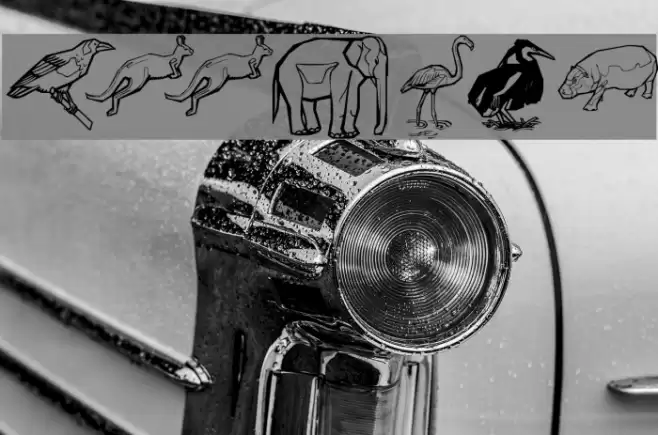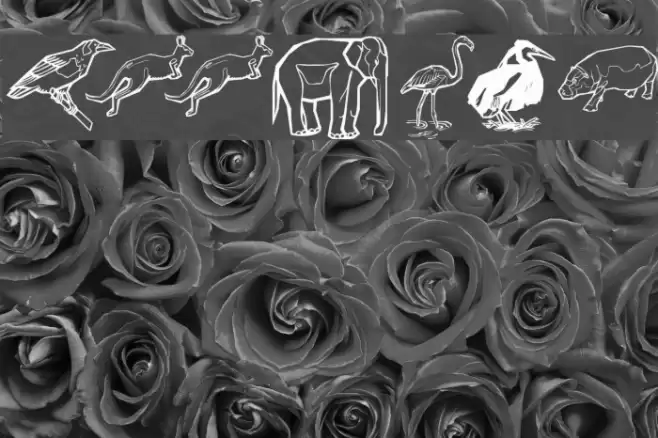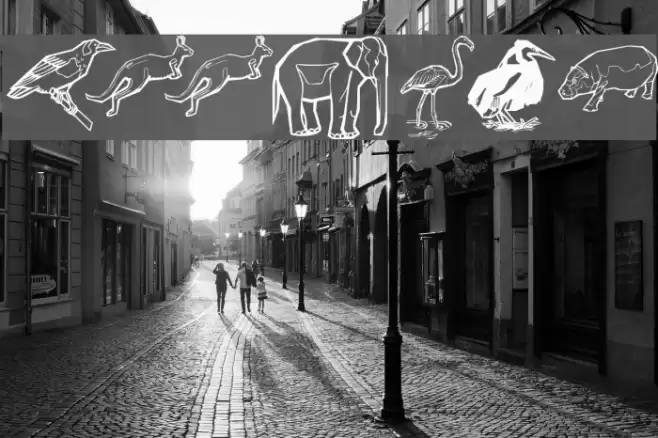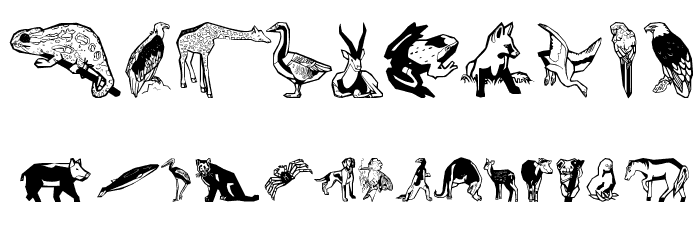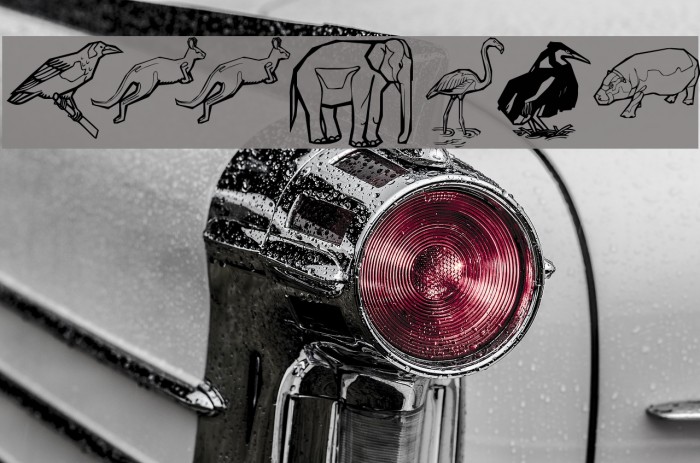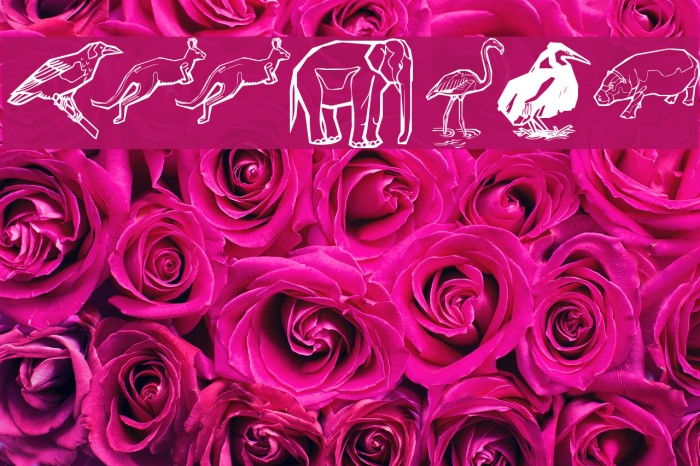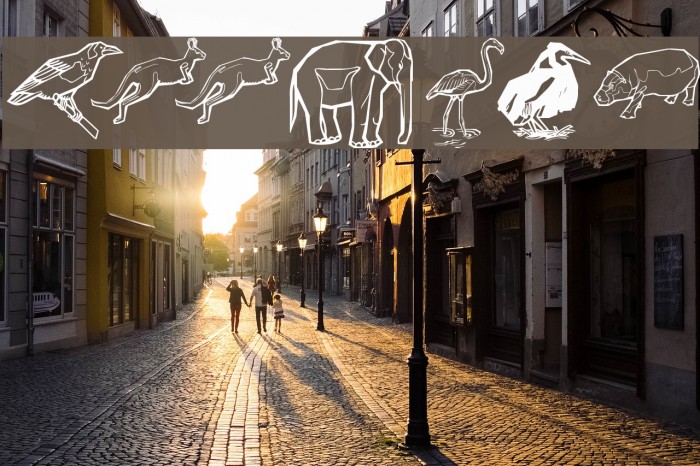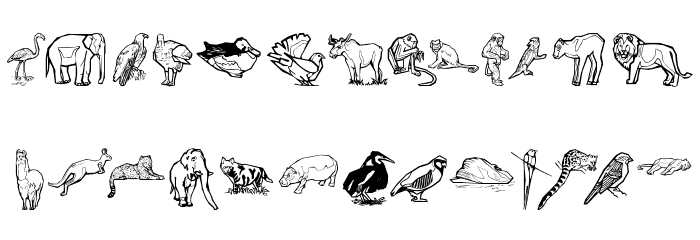
Zoobats Font
Zoobats Description
A decorative display font composed of detailed black-and-white animal illustrations forming each character, with each letter or symbol represented by a unique animal or bird in a hand-drawn style. The outlines are bold and the forms are highly illustrative, making each character distinct and visually engaging.
- Proposed Projects: Children's books, educational posters, zoo branding, wildlife campaigns, playful invitations, themed event materials.
- Overall Style: Decorative, Playful, Illustrative
- Use Case: Headlines, Logos, Posters, Themed Graphics